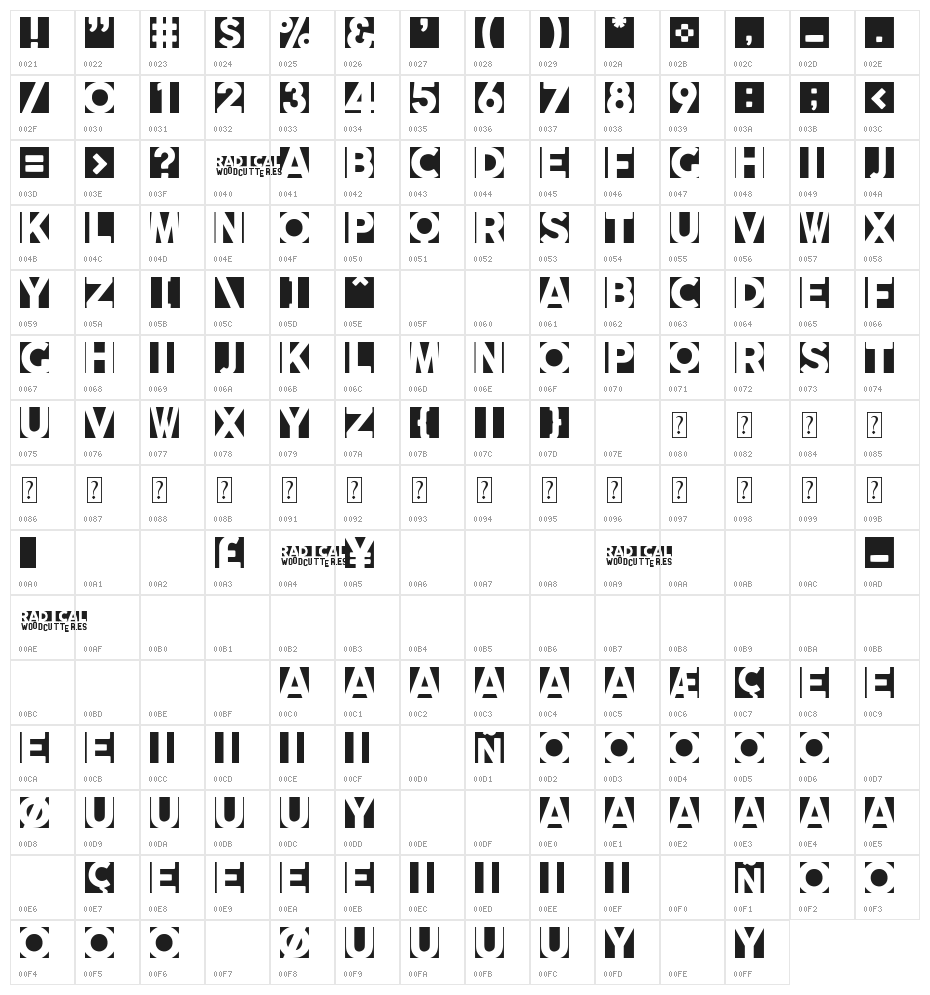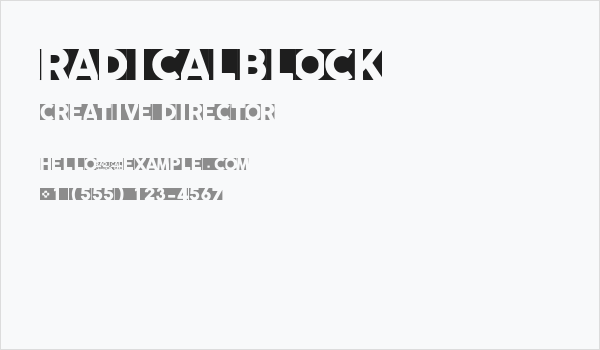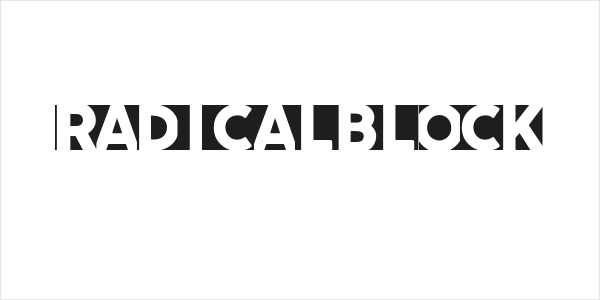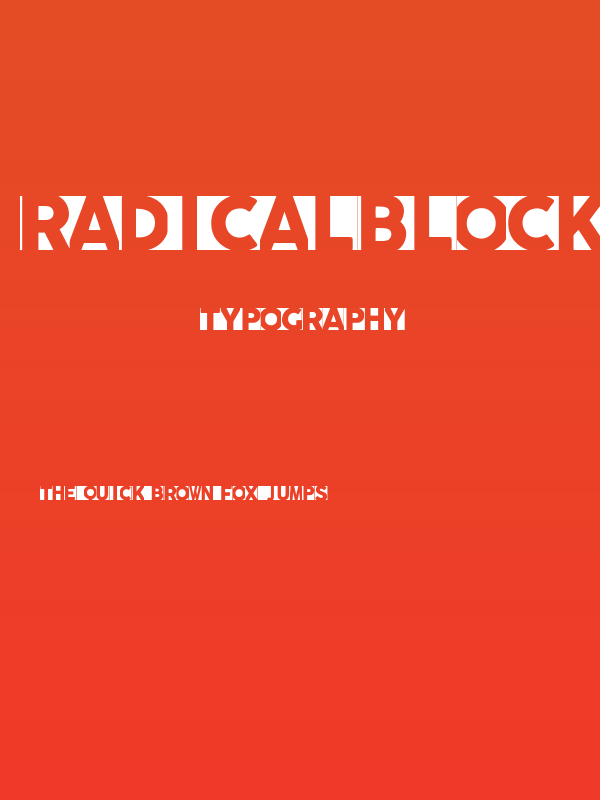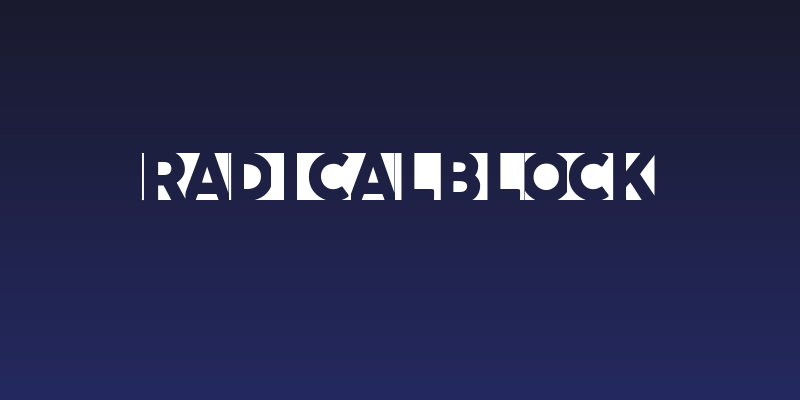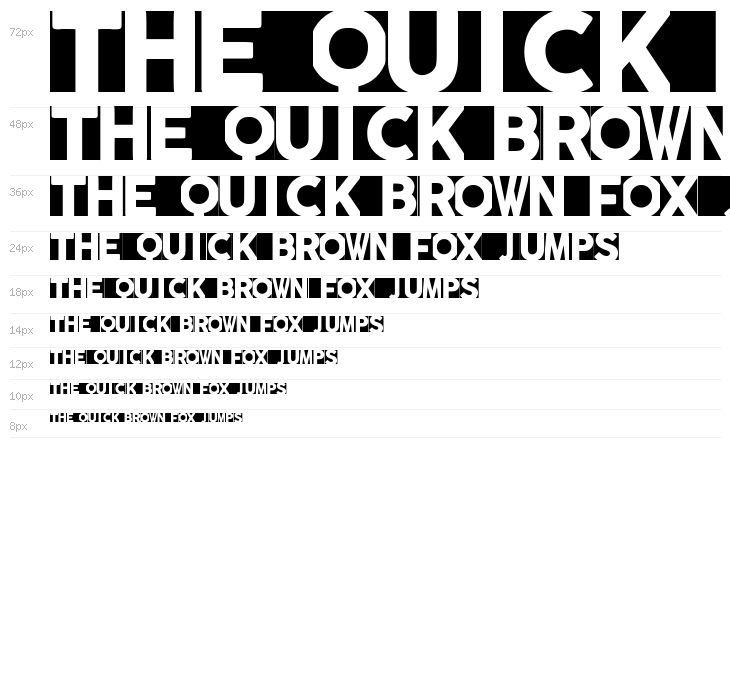
radicalblock Font
radicalblock Description
This font is a bold and striking display typeface characterized by its geometric and blocky design. Each letterform is crafted with sharp angles and a strong presence, making it ideal for attention-grabbing headlines and titles. The uppercase and lowercase letters maintain a consistent style, with a unique cut-out effect that adds a modern and edgy feel. The numerals and special characters follow the same design principles, ensuring a cohesive look across all text elements. This font is perfect for projects that require a bold statement and a contemporary aesthetic.